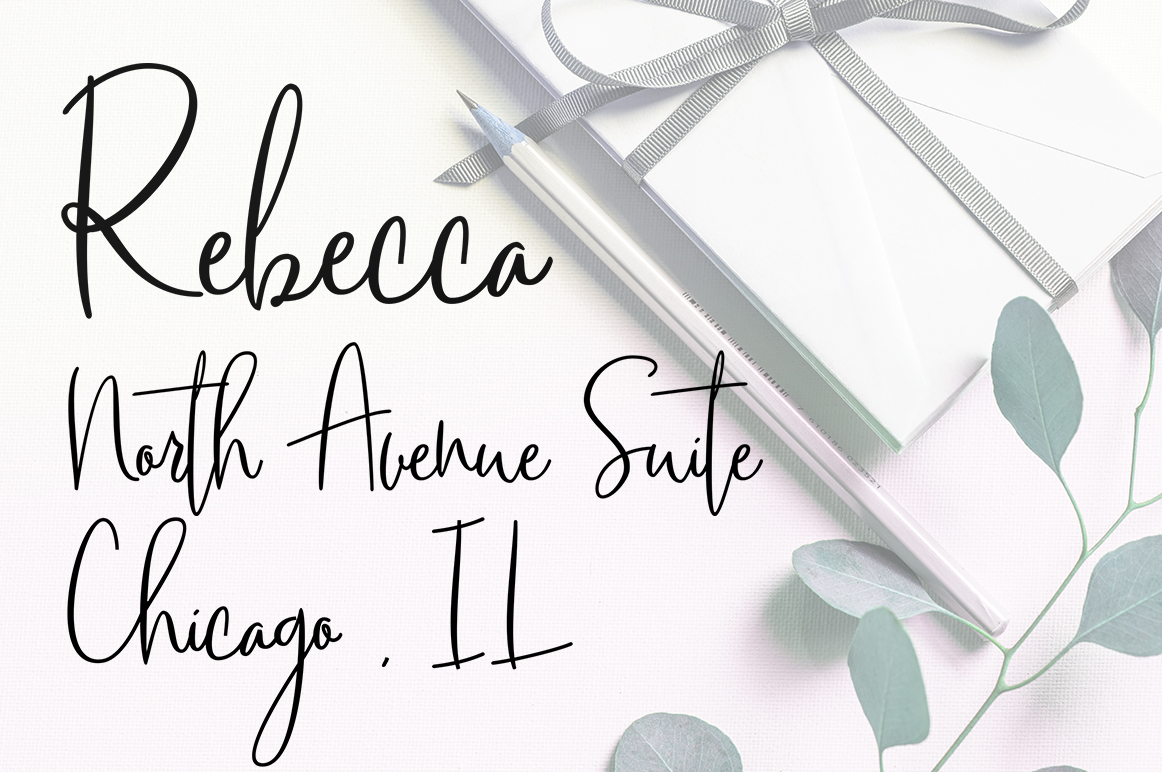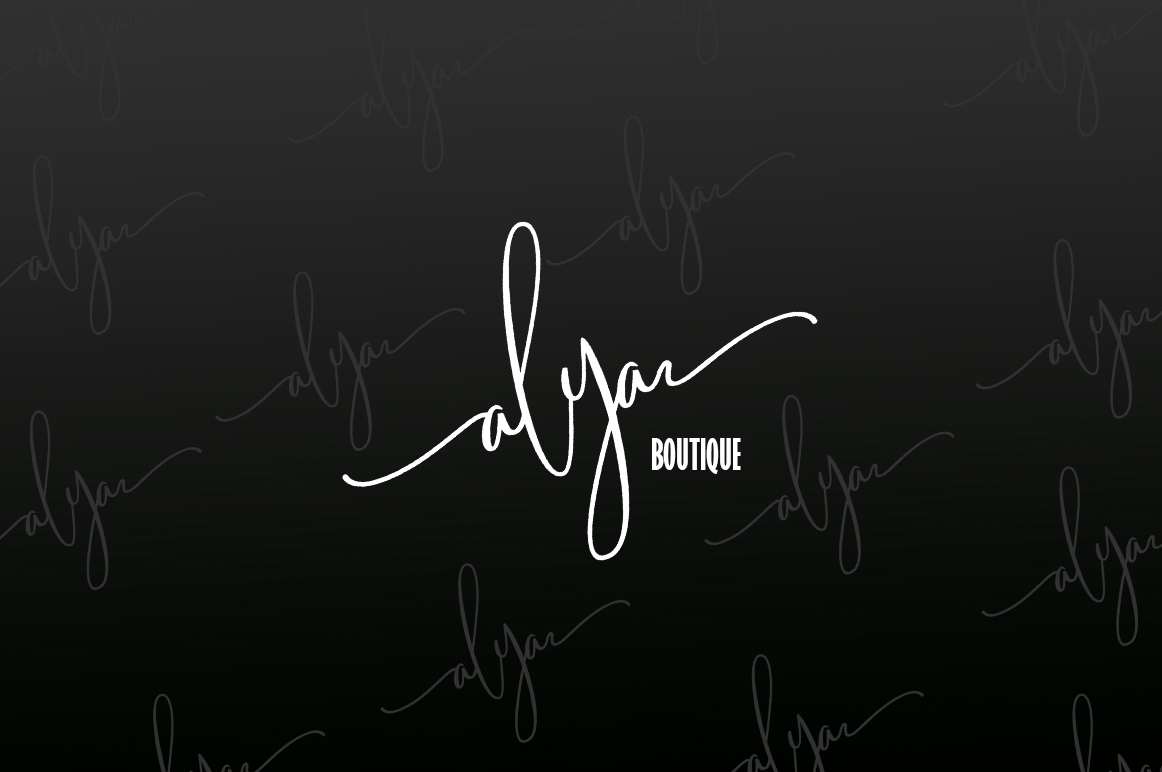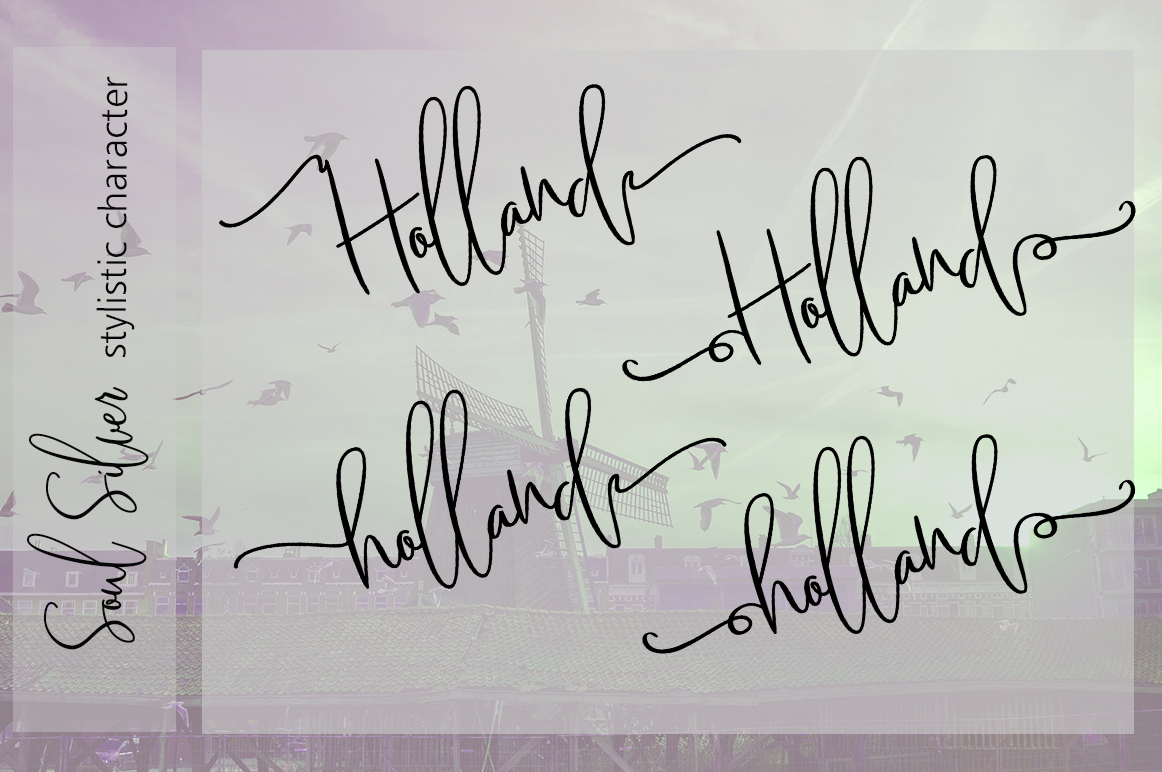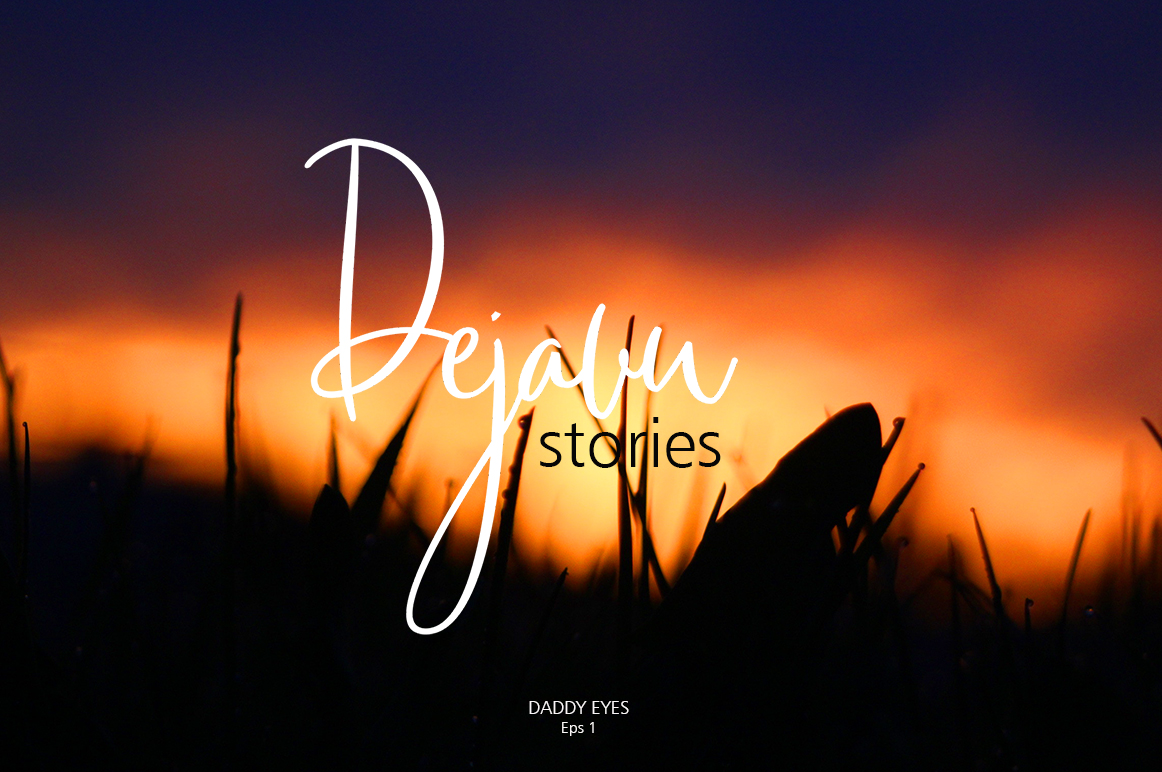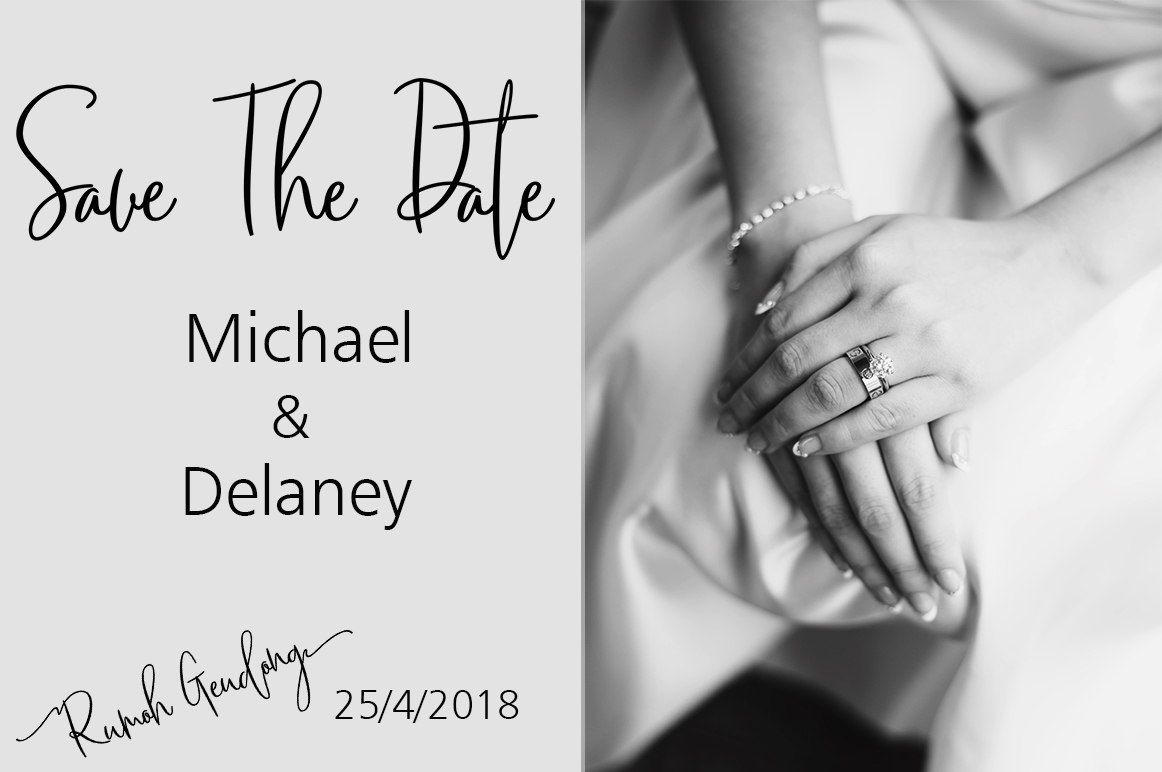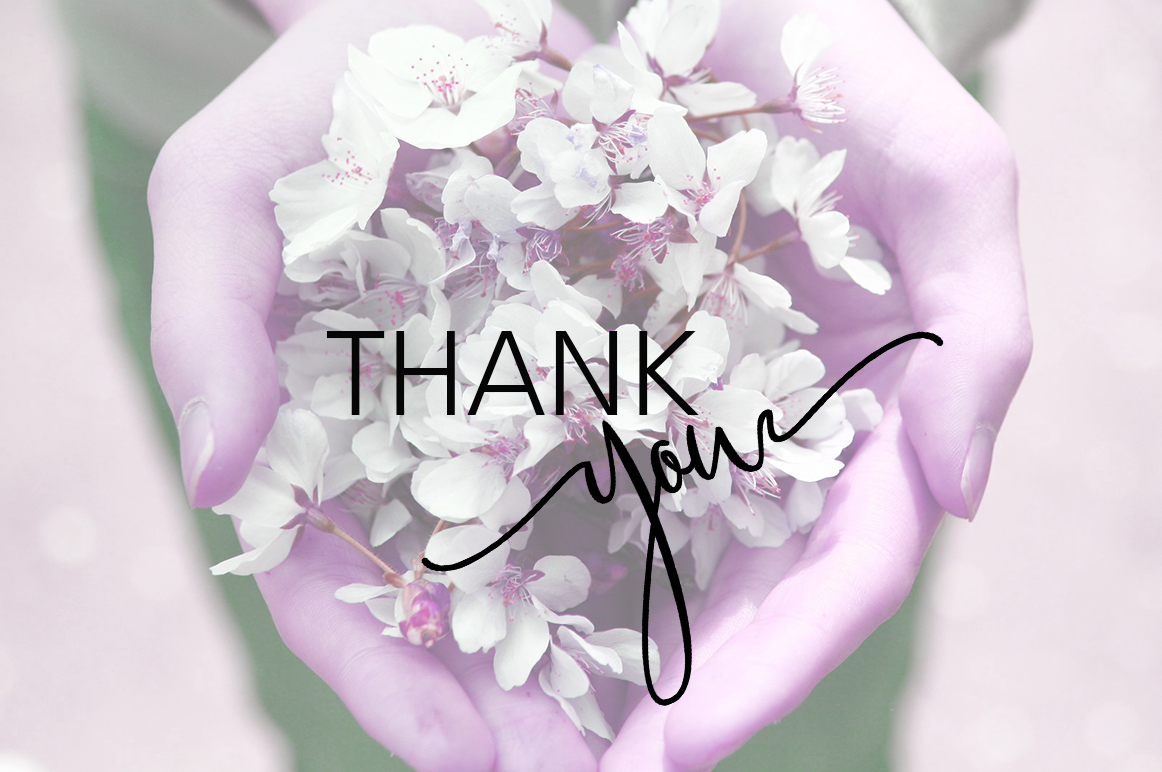
Soul Silver Font
About Soul Silver Font
Soul Silver is an elegant combination of a script and a narrow modern serif. It is slender, feminine and classy, while still maintaining a friendly feel. Soul Silver is versatile and will work perfectly for any project that needs to feel sleek and chic.